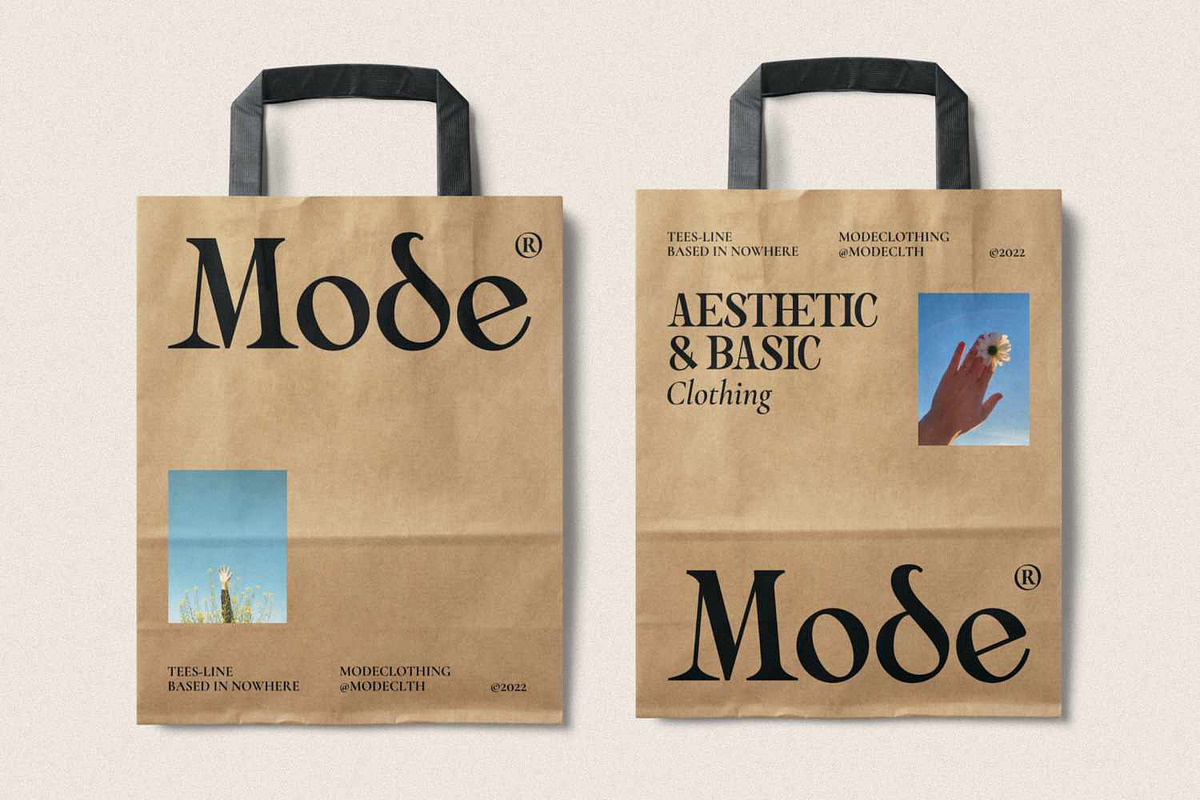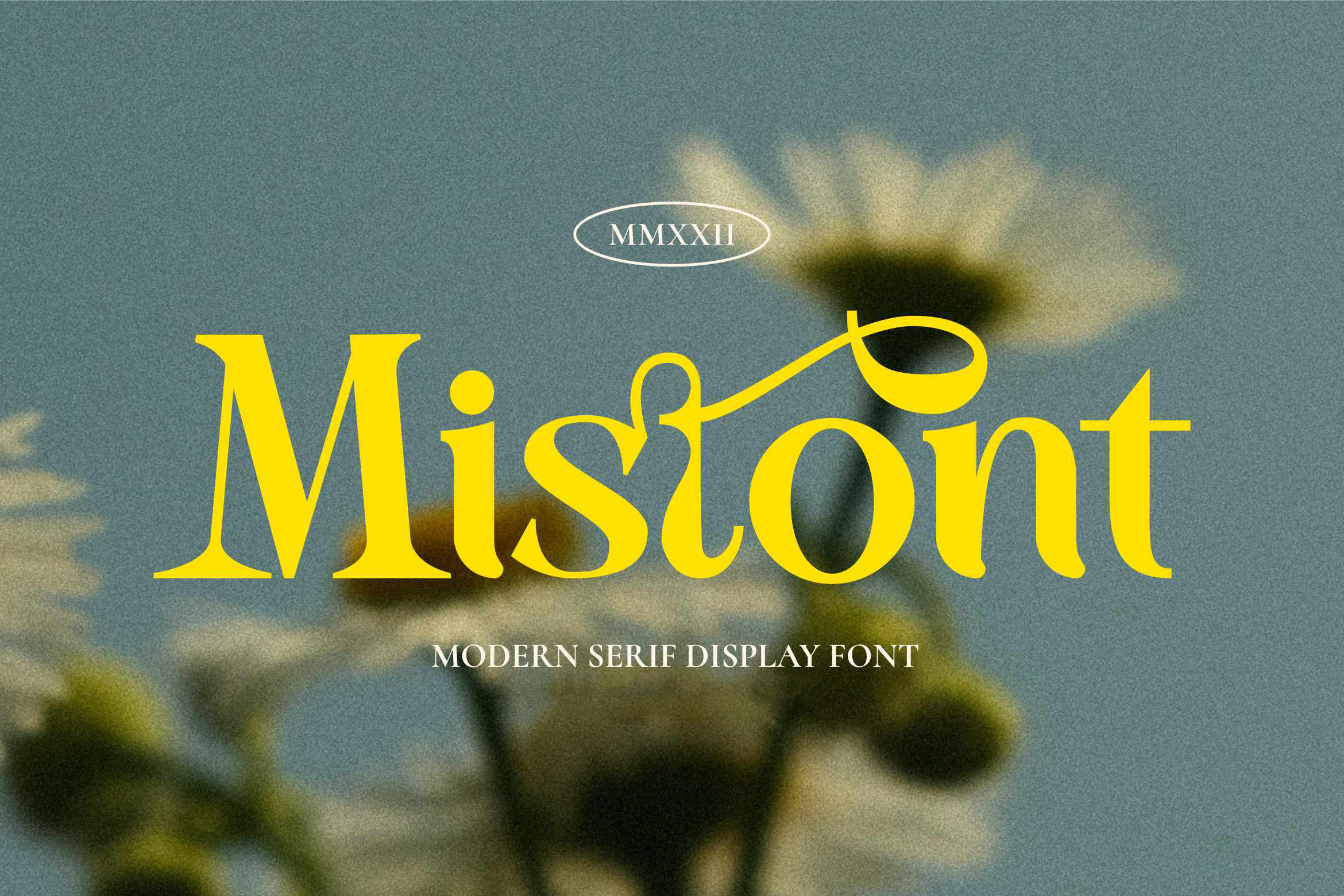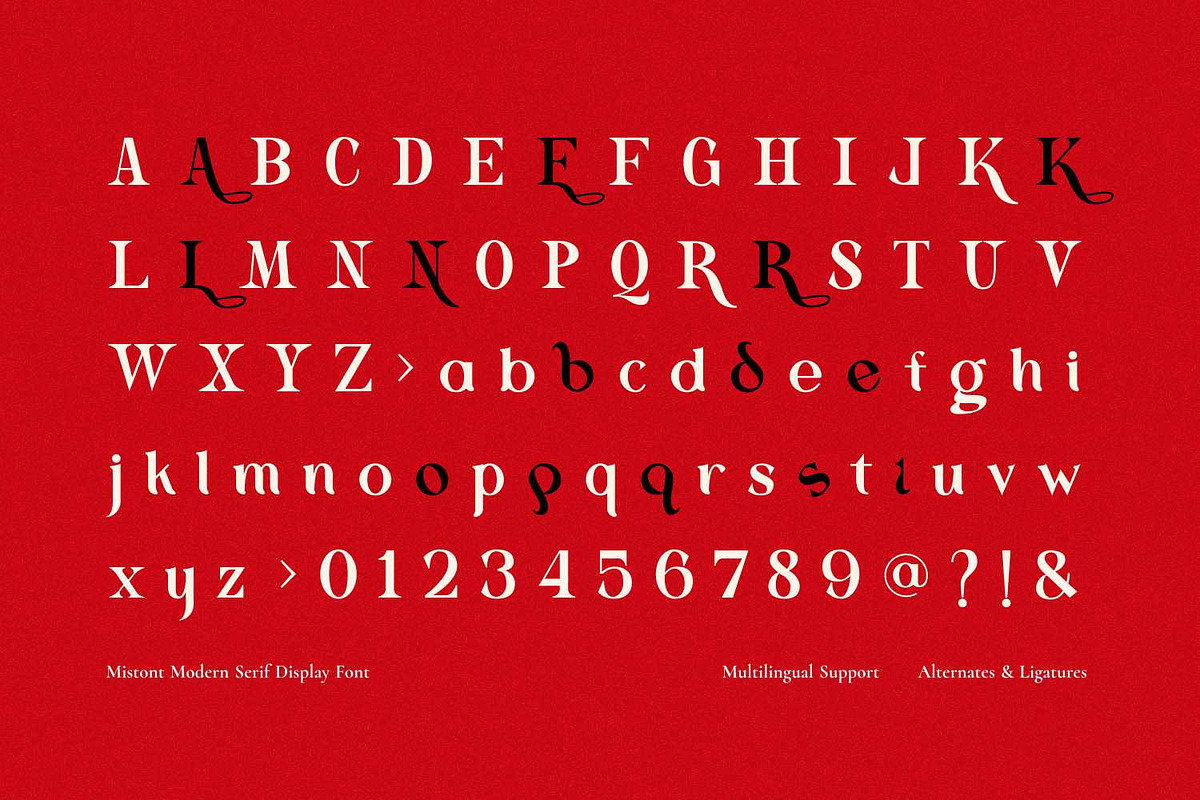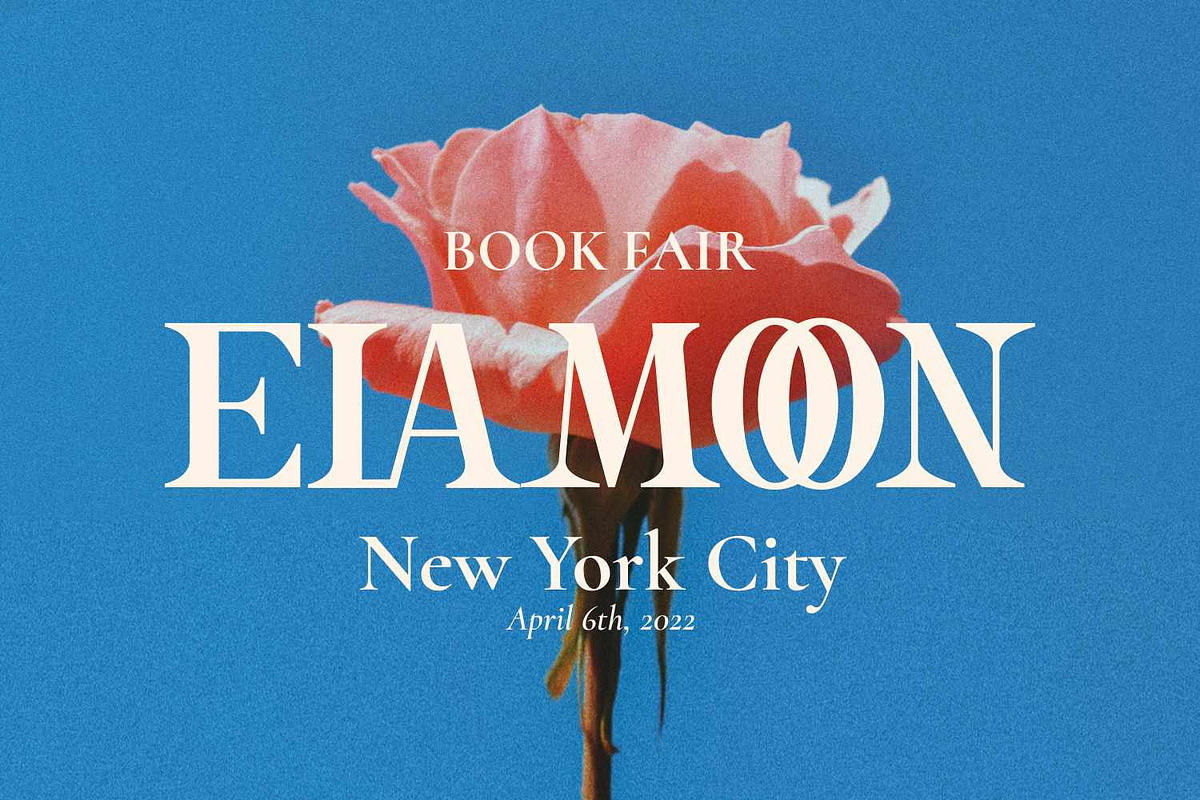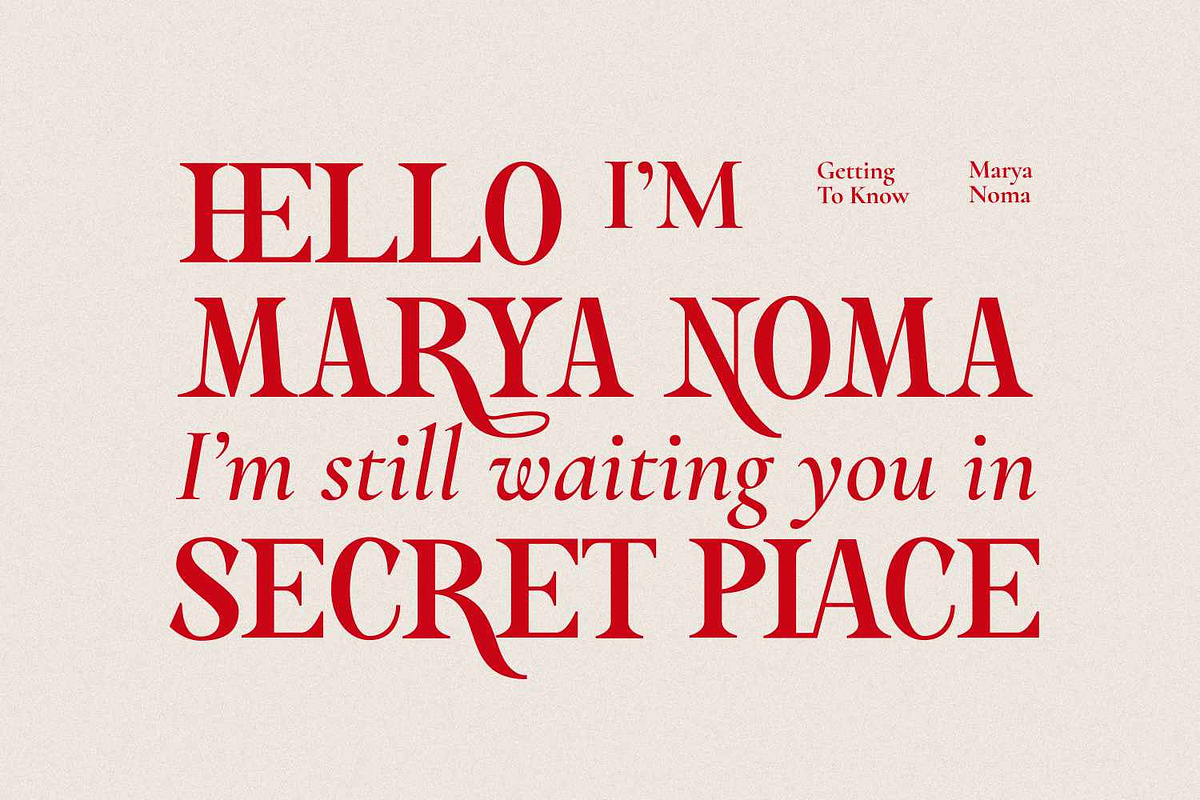
Mistont - Beautiful Serif Font
Mistont is a modern serif display font that stands out with sharp contrast and graceful, flowing swashes. Its letterforms balance classic elegance with modern, classy flair. This font features distinctive curves and stylish alternates, giving every word a luxe, premium feel.
It’s perfect for headlines, fashion branding, editorial titles, packaging, and event promos or creative projects. Ideal for premium brands, magazines, packaging, or any design that needs to look instantly stylish and high end.
Uppercase and Lowecase Characters
Numerals and Punctuations
Alternates and Ligatures